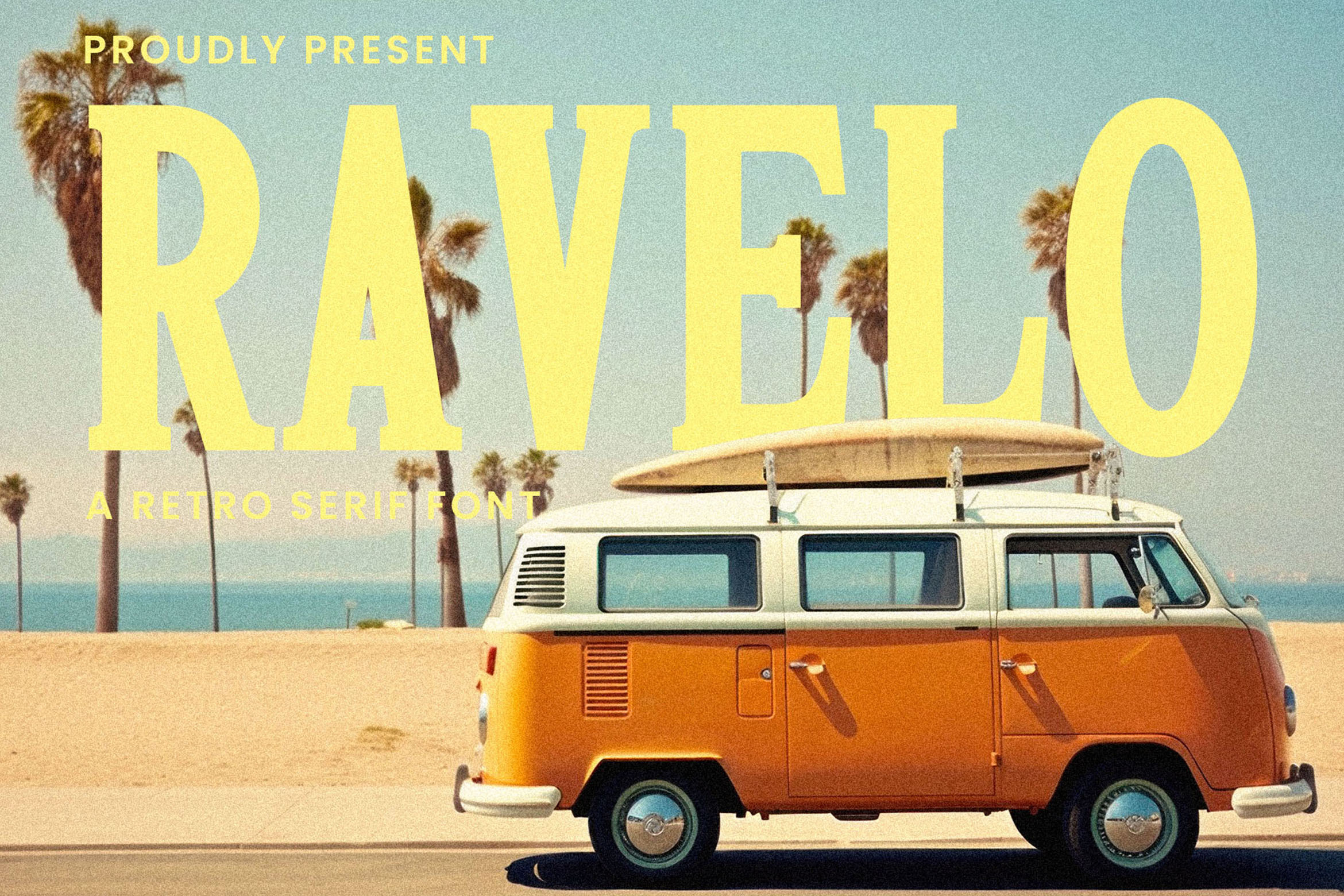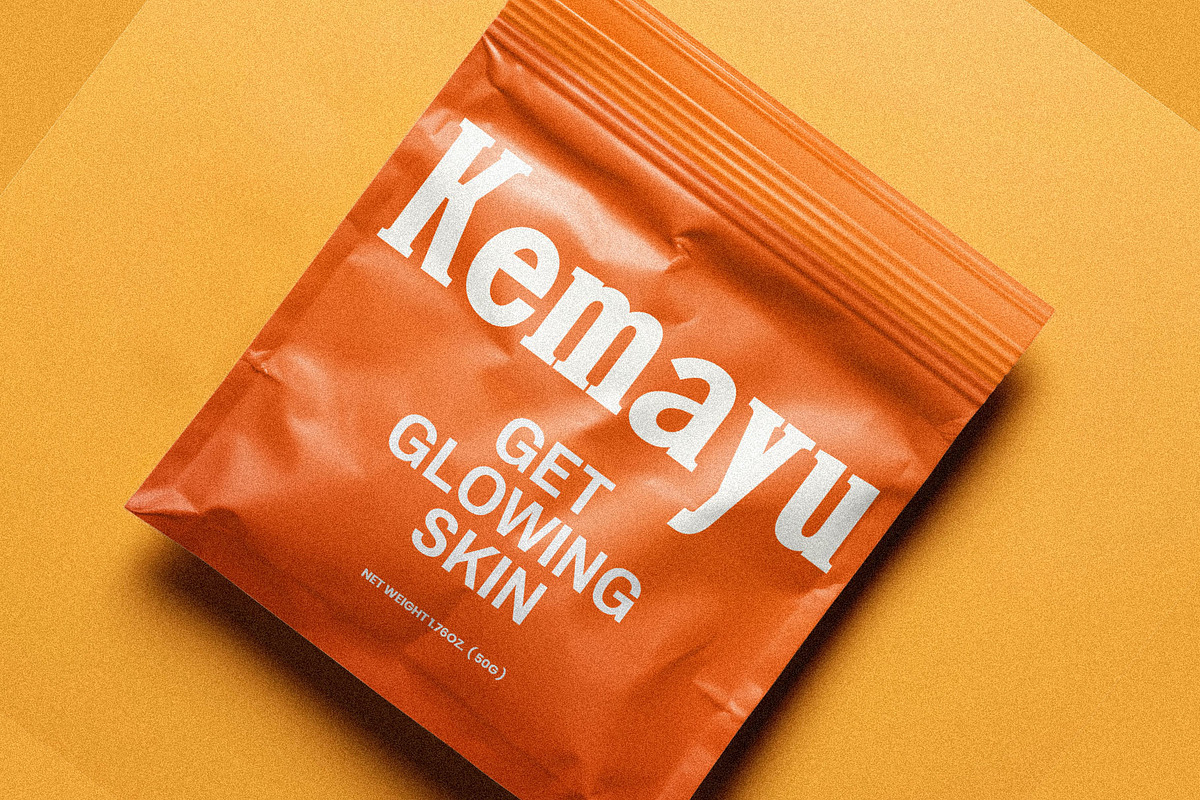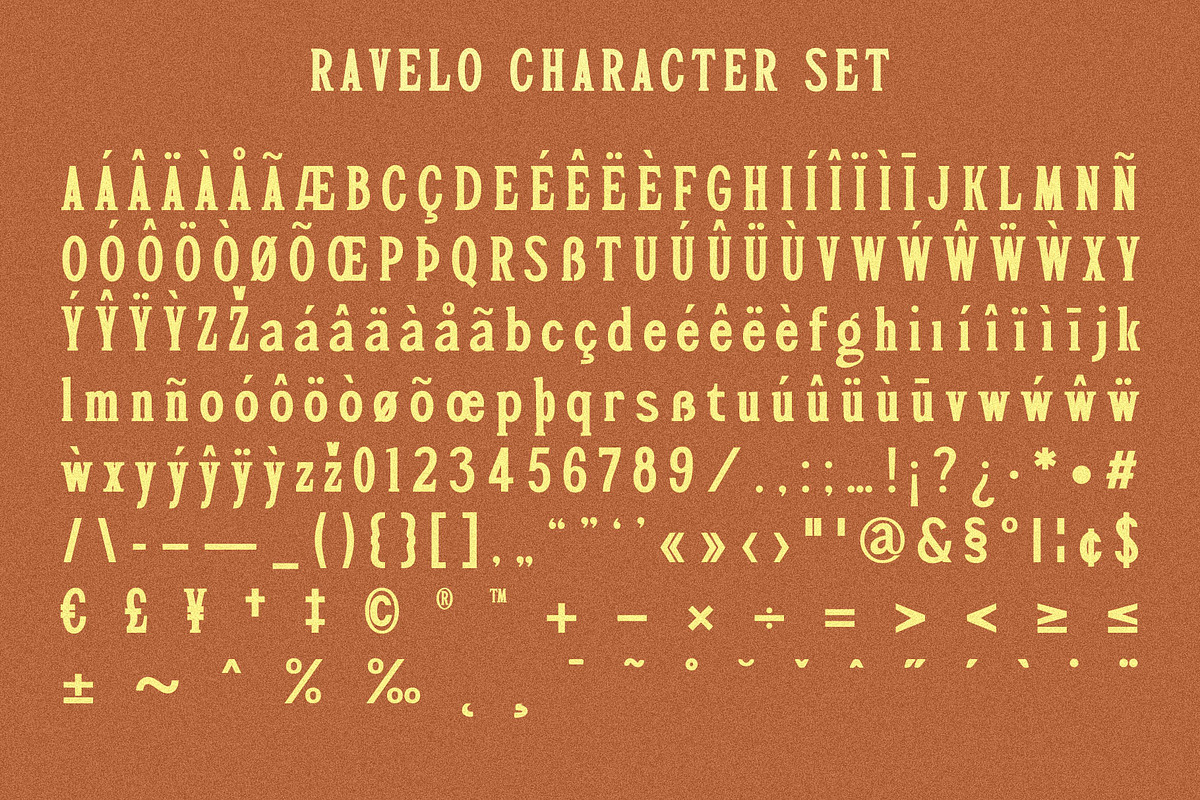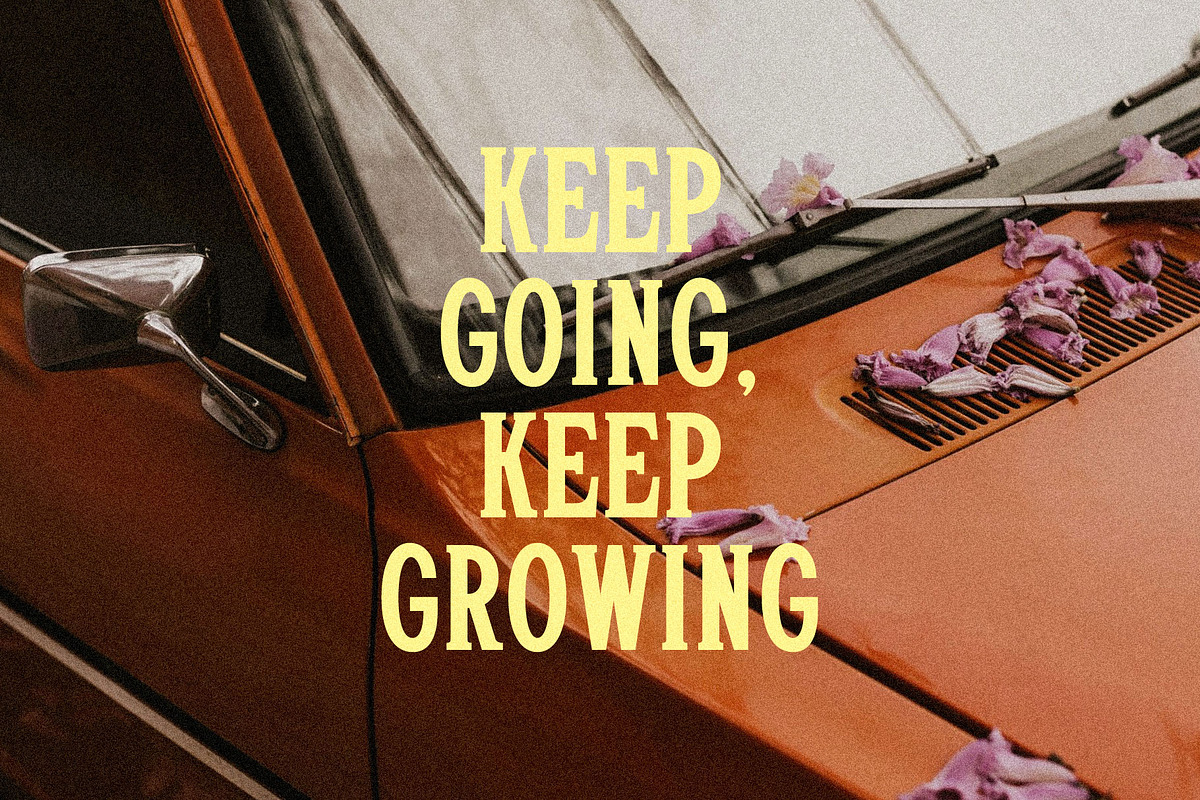
Ravelo - Retro Serif Font
Introducing Ravelo - Retro Serif Font. Ravelo is a simple Retro serif font, This type of font is very suitable for your various needs such as branding projects, logos, social media posts, advertisements, labels, product packaging, photography, wedding designs, watermarks, invitation product designs, stationery, and any project.